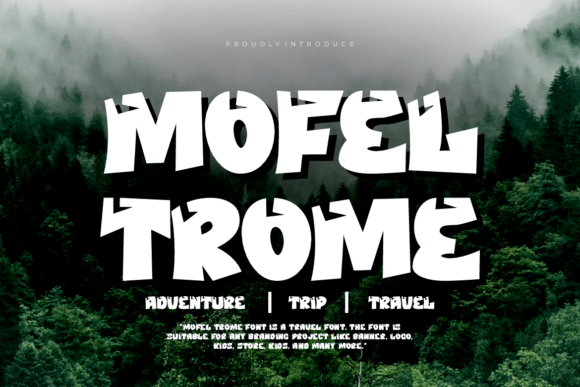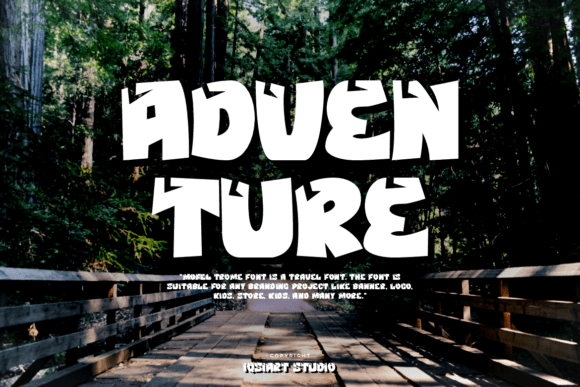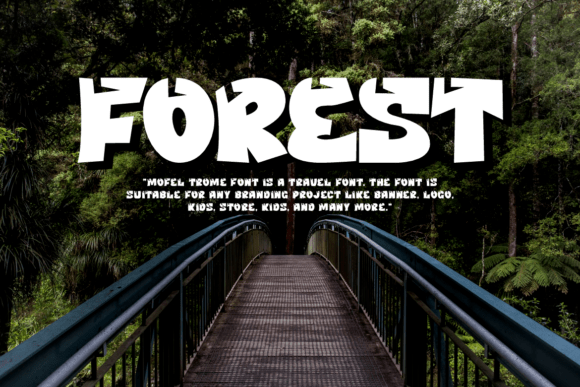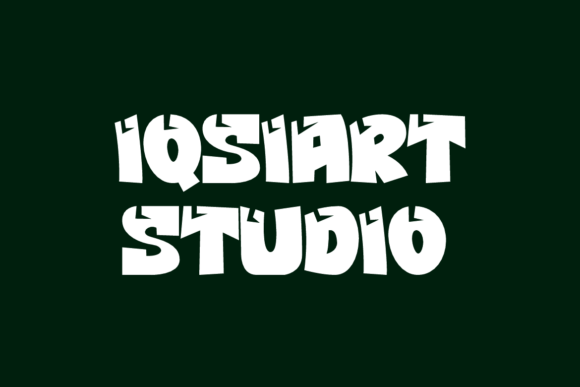
Mofel Trome Font: A Bold Display Font for Playful Adventure Branding
About the Mofel Trome Font
Step up your design game with Mofel Trome Font, a font that exudes confidence and style. Bring the spirit of exploration to your designs with Mofel Trome, a bold and playful travel font! With its chunky, dynamic characters and rugged energy, it’s perfect for adventure branding, kids’ stores, outdoor campaigns, and travel blogs. Whether you’re creating banners, logos, or playful titles, Mofel Trome delivers a fun, high-impact look that commands attention.
Mofel Trome’s strong, playful personality shines in headlines, short texts, and logos for brands focused on adventure, youth, and outdoor activities. It’s ideal for posters, packaging, and even social media graphics where visual impact is key. However, its bold weight and chunky serifs make it unsuitable for body text or UI elements requiring high readability.
To balance Mofel Trome’s robust energy, pair it with a clean sans-serif like Open Sans for body copy or a more elegant serif like Merriweather for a sophisticated contrast. For a more playful feel, consider pairing it with a rounded sans-serif like Lato.
Its overall aesthetic leans towards a bold, friendly, and slightly rugged personality, making it a great choice for projects that need to communicate excitement and approachability.
Mofel Trome Font Usage Examples
Mofel Trome Font Example